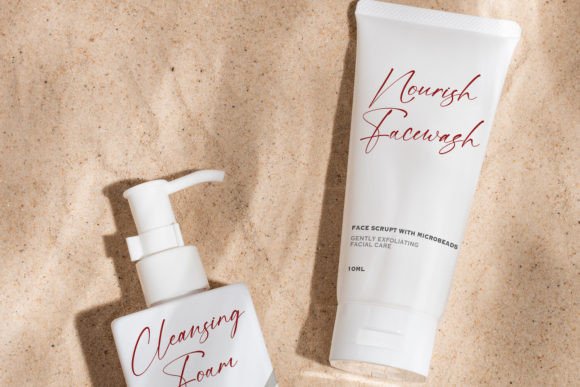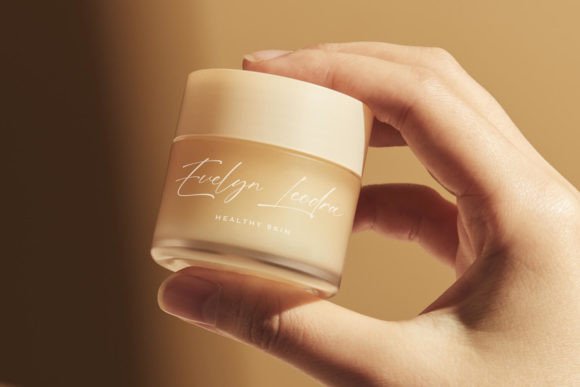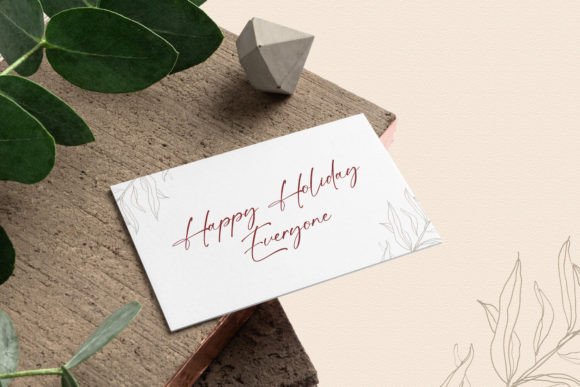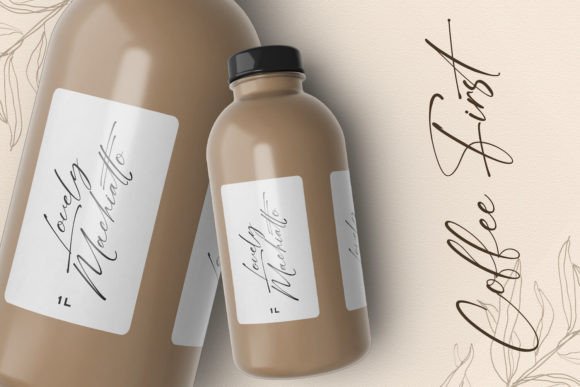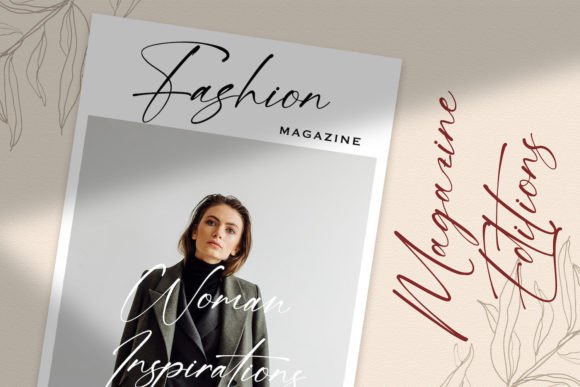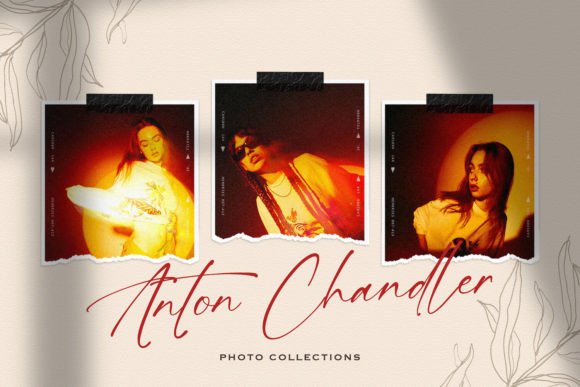
Unleash Your Creativity with Alatas Script Font
Have you ever sat at your desk, staring blankly at a blank page, waiting for inspiration to strike? That’s where I was the first time I stumbled upon the Alatas Script Font. I was working on a project that required a delicate touch, and this font was the missing piece I needed to bring my design to life.
The Alatas Script Font is a masterclass in elegance and refinement. With its flowing, handwritten characters, it’s the perfect choice for designers looking to add a touch of sophistication to their work. And with its wide range of glyphs and ligatures, you’ll have endless possibilities at your fingertips.
Whether you’re a seasoned designer or just starting out, the Alatas Script Font is an invaluable tool in your creative arsenal. Its PUA encoding makes it easy to access all the characters you need, and its versatility makes it a great fit for a wide range of projects.
Key Features of Alatas Script Font
- Font Style: Script, Calligraphy
- Unique Characteristics: Includes alternate characters, swashes, and flourishes for added elegance and sophistication
Alatas Script Font Review
Overall, I’d say Alatas Script Font is a beautiful, elegant font that can add a touch of sophistication to any design project. ✨ It’s perfect for creating a luxurious feel, especially when used for invitations, menus, or any other material that needs a high-end look.
- Unique flair: Alatas Script Font has a unique, cursive style that sets it apart from other script fonts.
- Legibility: Despite its intricate design, the font is surprisingly legible, making it perfect for body text or headlines.
- Customizability: The font comes in various weights and styles, giving you plenty of options to choose from.
- Complexity: With its intricate design, the font can be difficult to work with, especially for beginners.
- Compatibility: Some users have reported issues with the font’s compatibility across different devices and platforms.
Overall, I’d say Alatas Script Font is a great choice for designers who want to add a touch of elegance to their projects. While it may have some limitations, the font’s unique flair and customizability make it well worth the investment. ⚠️
For best results, pair the Alatas Script Font with a clean and modern sans-serif font. Use it sparingly to add emphasis and visual interest to your designs.
The Alatas Script Font is ideal for:
- Food and beverage branding
- Handwritten-style quotes and captions
Alternatives to Alatas Script Font
Great Vibes is a beautiful, elegant script font perfect for creating a luxurious and sophisticated look. It features connected strokes and a flowing feel, making it ideal for headings, titles, and logos.
Compared to Alatas Script Font, Great Vibes has a more refined and polished look, with a greater emphasis on elegance and sophistication. While Alatas Script Font has a more playful and casual feel, Great Vibes is better suited for high-end branding and design projects.
Carolyna Pro is a modern script font with a soft, feminine touch. It features a flowing, cursive feel with elegant connections between letters, making it perfect for wedding invitations, fashion branding, and other design projects that require a touch of sophistication.
Compared to Alatas Script Font, Carolyna Pro has a more delicate and refined look, with a greater emphasis on elegance and sophistication. While Alatas Script Font has a more playful and casual feel, Carolyna Pro is better suited for design projects that require a touch of femininity and sophistication.
Alex Brush is a elegant script font with a beautiful, handwritten feel. It features a flowing, cursive style with elegant connections between letters, making it perfect for headings, titles, and logos.
What is the font weight and style of Alatas Script Font?
Alatas Script Font is available in various font weights, including Light, Regular, Medium, and Bold. It also comes in different font styles, including Script, Italic,